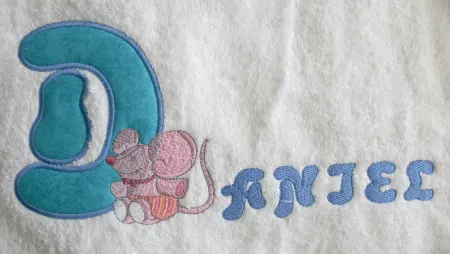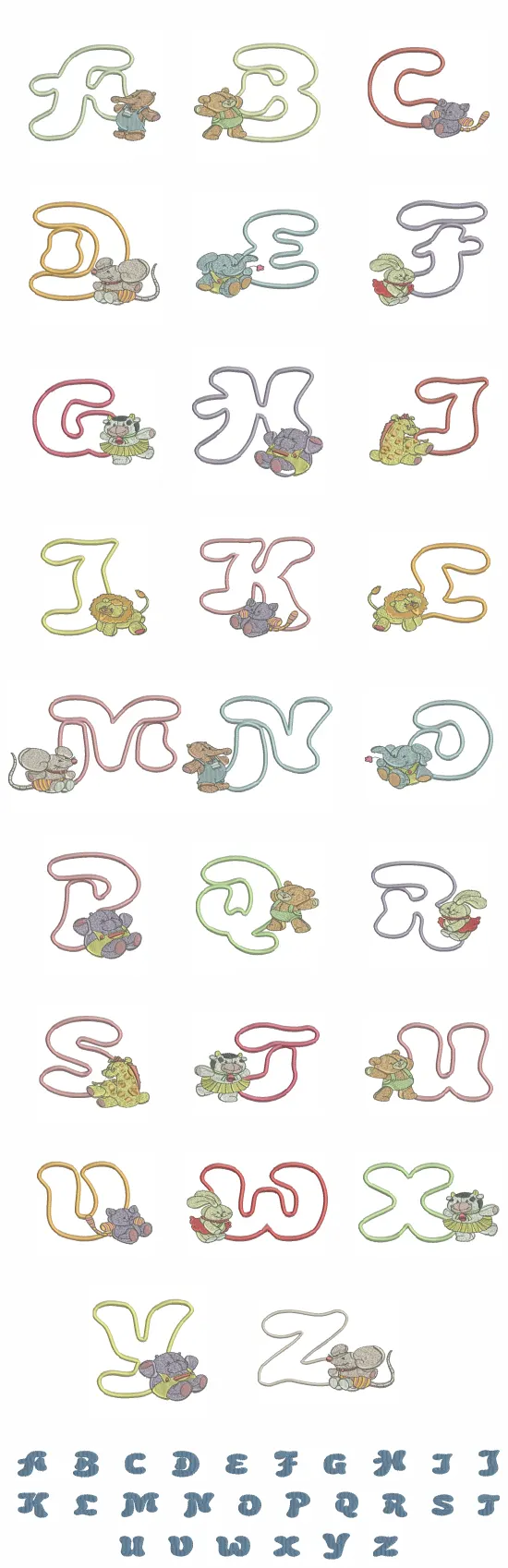
The funnest, funkiest and oh so cute Applique Alpha with a set of matching small lettes to make those easy to do but ever so proffessional crafty personalized name sets for baby.